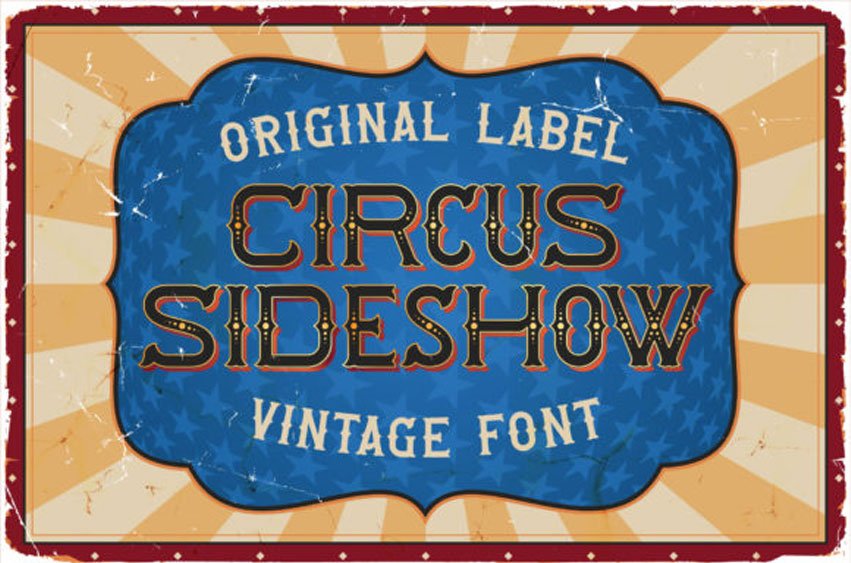
Circus Sideshow Font is a chic and vintage styled display font. Whether you’re using it for crafts, digital design, presentations, or making greeting cards.
This font has the potential to become your favorite go-to font for each of your western inspired designs.